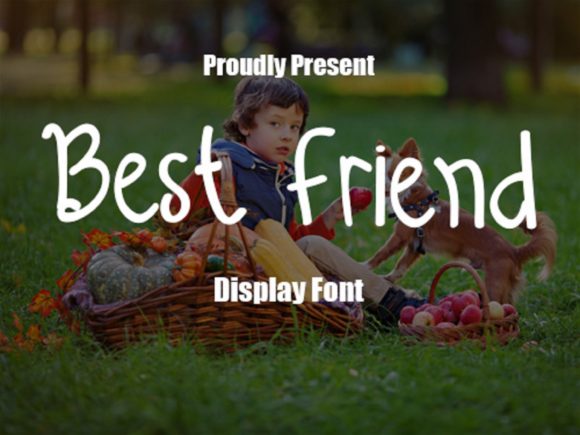
The Ultimate Guide to Best Friend Font: A Designer’s New BFF
I’ll never forget the time I was working on a cartoon-themed project for a client, and I just couldn’t seem to find the right font. I scrolled through page after page of Google Fonts, but nothing seemed quite right. That was until I stumbled upon Best Friend font – a simple, clean, and quirky handwritten font that instantly captured the playful spirit of my design. In this article, I’ll share my love for Best Friend font, its features, and how to make the most of it in your designs.
An Honest Review of Best Friend Font
What I Love About Best Friend Font ✨
• ✅ Easy to read: Best Friend font is clear and legible, making it perfect for body text or headings.
• ✅ Versatile: This font works beautifully for cartoon-related designs, children’s games, and any project that requires a touch of whimsy.
• ✅ Quirky and playful: Best Friend font has a unique personality that adds a dash of fun to any design.
While Best Friend font is an excellent choice for many projects, it’s not without its limitations. For example:
• ⚠️ Limited use for formal projects: Best Friend font is quite playful, so it might not be the best fit for formal or professional projects that require a more serious tone.
• ⚠️ Glyph support: While Best Friend font comes with a range of glyphs and OpenType features, it might not have every special character or symbol you need.
The Story Behind Best Friend Font
Best Friend font was designed with the intention of creating a friendly, approachable font that would bring joy to designs. The designer aimed to craft a font that was both clean and quirky, perfect for projects that require a playful touch. While the real story behind Best Friend font might be fictional, its charm and character are undeniable.
Q: Can I use Best Friend font for my children’s book?
A: Absolutely! Best Friend font is perfect for children’s books, with its playful and friendly personality.
Q: Does Best Friend font come with OpenType features?
A: Yes, Best Friend font comes with a range of OpenType features, including stylistic alternates and glyphs.